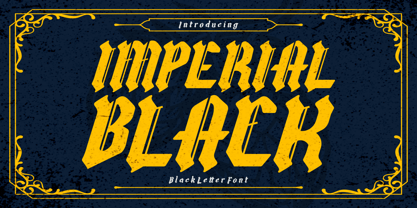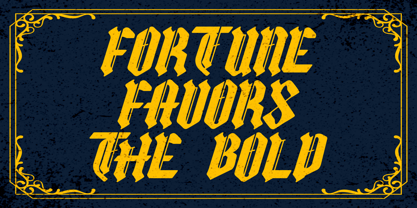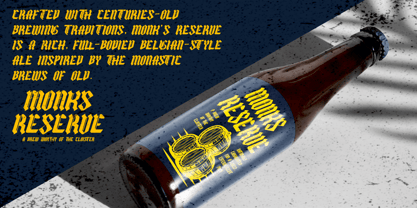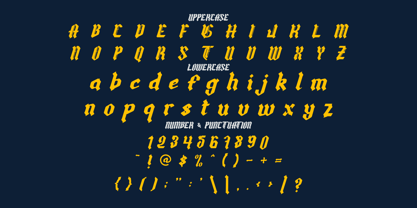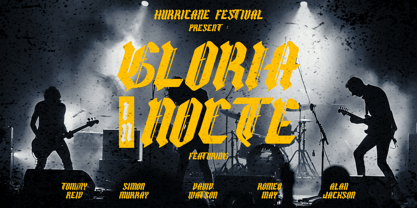
Imperial Black
by Shanaf
The Imperial Black Font Family was designed by Yesie Erma Yunita and published by Shanaf. Imperial Black contains 1 styles.
Introducing Imperial Black - Blackletter Font, a bold and powerful typeface that embodies elegance, strength, and gothic charm. With its sharp, angular strokes and medieval-inspired letterforms, this font brings a majestic and authoritative feel to any design. The rich golden-yellow text set against a deep navy blue, textured background enhances its vintage and royal appeal, making it perfect for branding, logos, posters, book covers, and historical-themed designs. The intricate, ornamental border elements further add to the regal and timeless aesthetic, making this font a must-have for those who want to create a dramatic and impactful visual experience. Whether you’re designing for tattoos, music covers, or luxury branding, Imperial Black delivers an unmistakable classic gothic presence.
Ideal for editorial headlines, gaming graphics, and merchandise, Imperial Black seamlessly blends traditional blackletter typography with a modern twist. The bold structure of each letter ensures high readability while maintaining an intricate, artistic touch. Whether used for historical themes, vintage packaging, or dark fantasy aesthetics, this font commands attention and adds an aura of prestige and mystery. Elevate your designs with Imperial Black, the ultimate blackletter display font designed to leave a lasting impression.